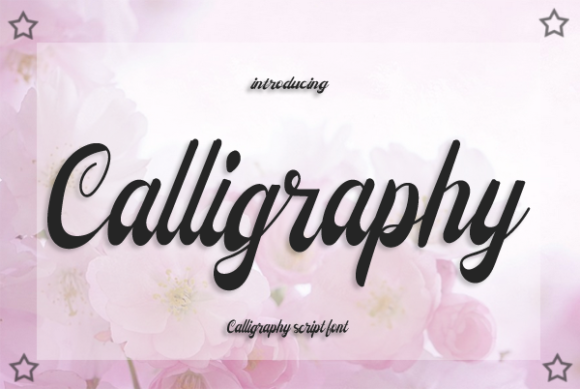
The Art of Beautiful Typography: Unlocking the Power of Calligraphy Font
As a designer, there’s nothing quite like the thrill of bringing a creative idea to life. It starts with a spark, a vision of how you want your design to make people feel. For me, it’s the moment when I decide to add a touch of elegance and sophistication to a project – and that’s where the beauty of Calligraphy Font comes in.
With its unique, handwritten flair, Calligraphy Font is the perfect choice for creating eye-catching logos, branding, and quotes that truly stand out. Every letter is imbued with a sense of character and personality, making your design come alive in a way that’s both timeless and modern.
For designers, the value of Calligraphy Font lies in its ability to add a touch of creativity and flair to any project. Whether you’re working on a high-end luxury brand or a small startup, this font is sure to make a lasting impression and leave a lasting impression on your audience.
Key Features of Calligraphy Font
- Unique Characteristics: Features elegant, cursive script with flourished connections, making it ideal for creative and artistic designs, such as wedding invitations, certificates, and awards.
Designer Review: Calligraphy Font
Overall, I think the Calligraphy Font is a beautiful and elegant choice for any project that needs a touch of sophistication. Here are some things that work well:
- ✨ Unique and intricate letterforms that evoke a sense of history and craftsmanship
- ✨ Excellent legibility, even at small font sizes
- ✨ Wide range of language support, making it suitable for international projects
- ✨ Available in various weights and styles to suit different design needs
- ⚠️ Can be quite dense and heavy, making it challenging to use in long blocks of text
- ⚠️ May not be the best choice for digital displays, as it can appear pixelated or fuzzy
- ⚠️ Can be difficult to read at very small font sizes, due to its intricate details
In conclusion, the Calligraphy Font is a stunning choice for projects where you want to add a touch of luxury and elegance. While it may have some limitations, its unique beauty and excellent legibility make it a worthwhile investment for any designer looking to elevate their work.
Calligraphy fonts are perfect for:
- Special occasion cards and gifts
- Brand logos and identity
- Typography-based artwork
Alternatives to Calligraphy Font for Designers
Lobster Font is a modern, cursive script font ideal for titles, headings, and emphasis in design projects. It’s perfect for creating a sense of elegance and sophistication. Unlike Calligraphy Font, Lobster Font has a more contemporary feel and is more versatile in its application.
Carolyna Pro Font is a high-end, elegant script font suitable for luxury brands, fashion, and high-end design projects. It’s ideal for creating a sense of sophistication and refinement. Compared to Calligraphy Font, Carolyna Pro Font has a more refined and polished look, making it perfect for premium brands.